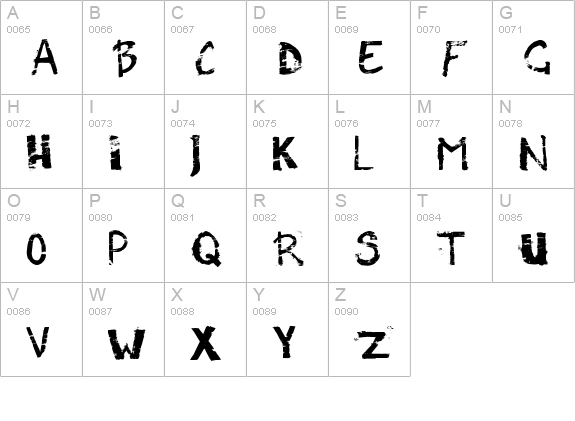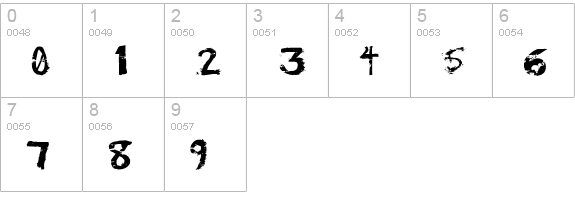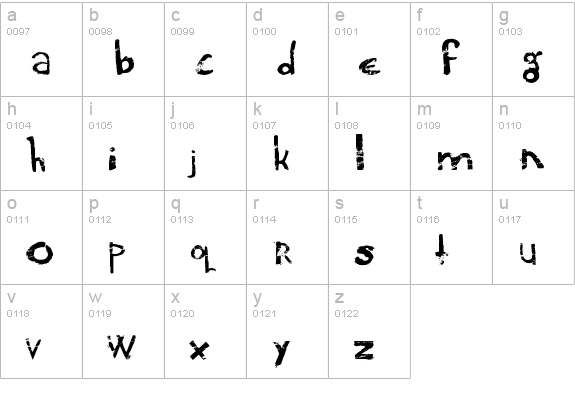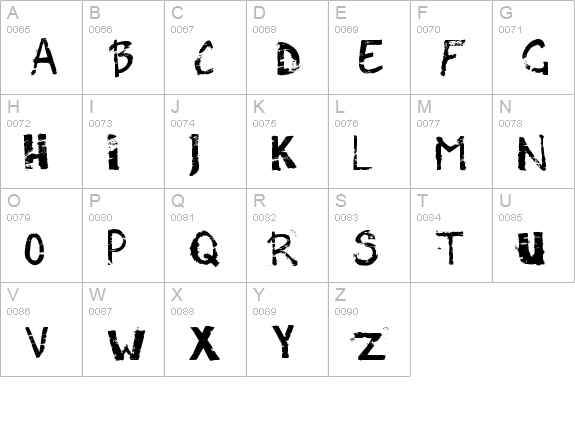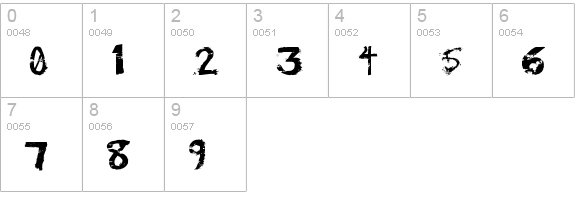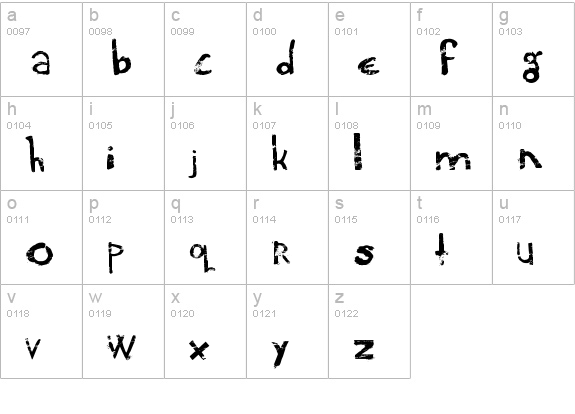
Potato Print Font Details
Potato Print font is a charming and whimsical typeface that brings a playful touch to any design project. With its hand-drawn look and uneven edges, this font exudes a sense of creativity and uniqueness. Perfect for adding a fun and quirky element to invitations, posters, or greeting cards, Potato Print font is sure to grab attention and make your designs stand out. Best of all, Potato Print font is available for free download at FontsMarket.com. This means you can easily access this delightful font and start using it in your projects without any cost. Embrace the creativity and character of Potato Print font today and infuse your designs with a touch of whimsy.